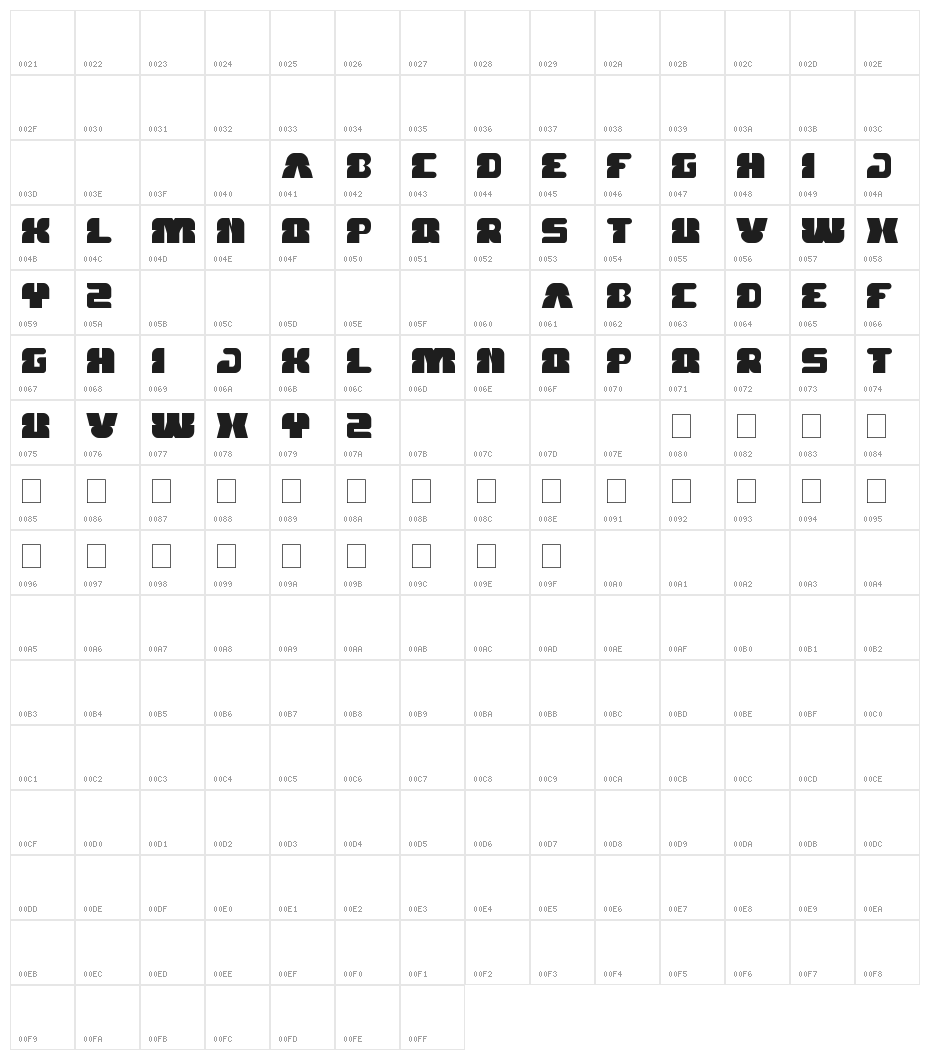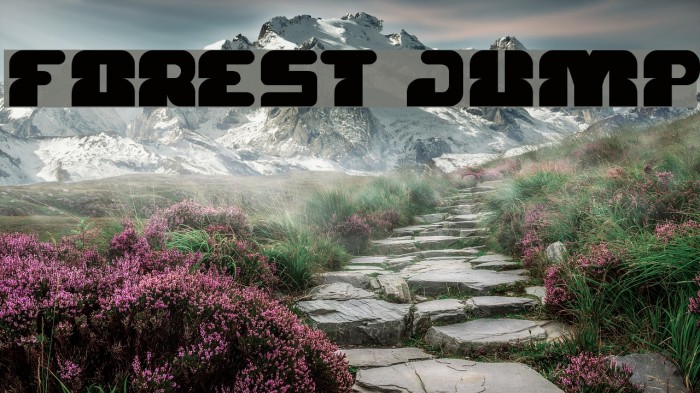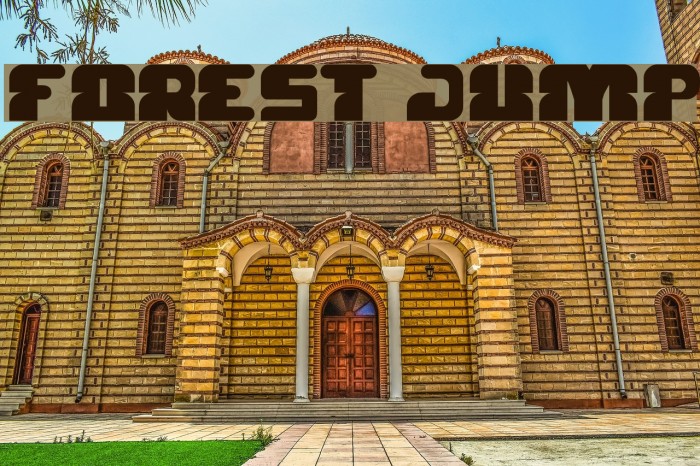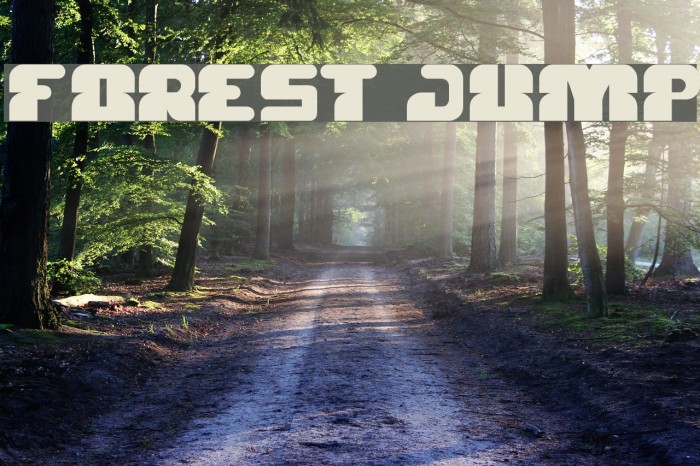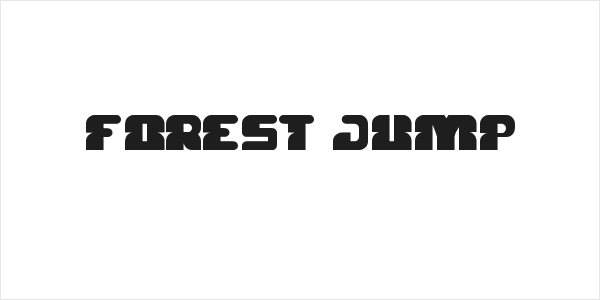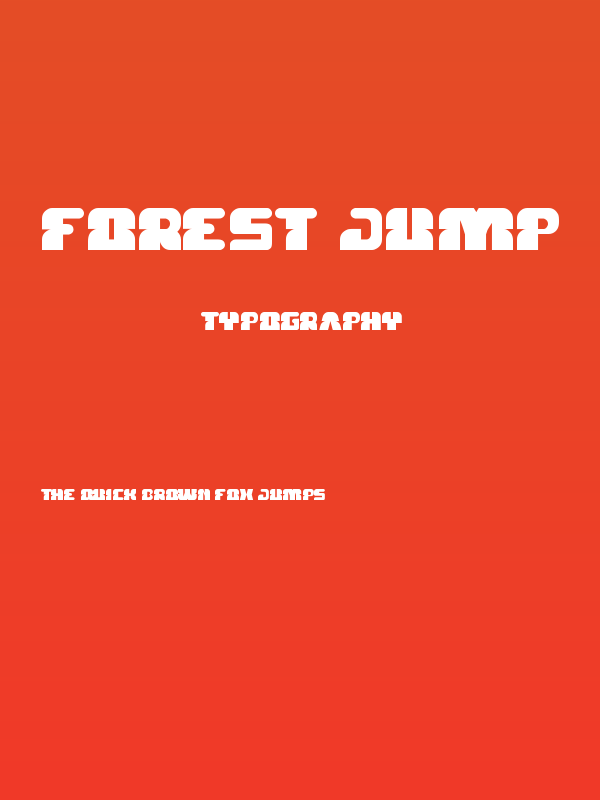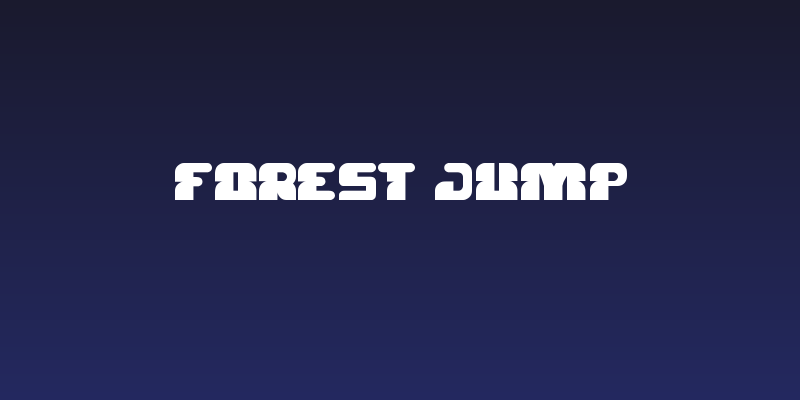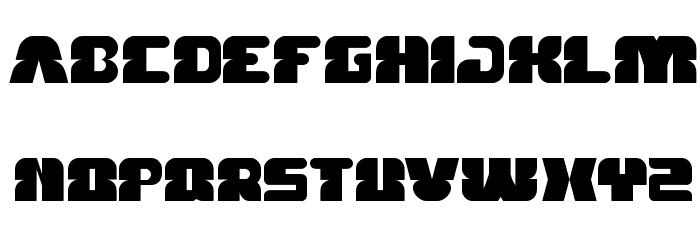
FOREST JUMP Font
FOREST JUMP Description
This font features a bold and robust design with a distinct geometric style. Each character is crafted with thick, block-like shapes that create a strong visual impact. The uppercase letters are uniform in height, contributing to a cohesive and balanced appearance. The font's unique structure is characterized by angular cuts and sharp edges, giving it a modern and industrial feel. The spacing between characters is tight, enhancing its compact and solid look. This font is ideal for projects that require a bold statement and a contemporary aesthetic.
| Proposed Projects | Suitable for branding, posters, headlines, and any design requiring a strong visual impact. |